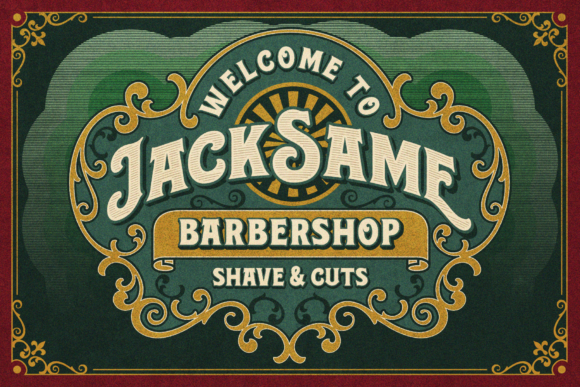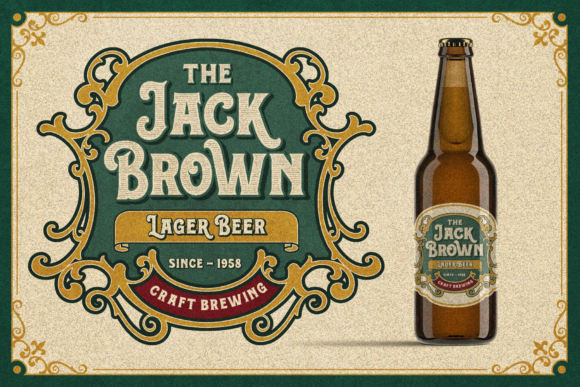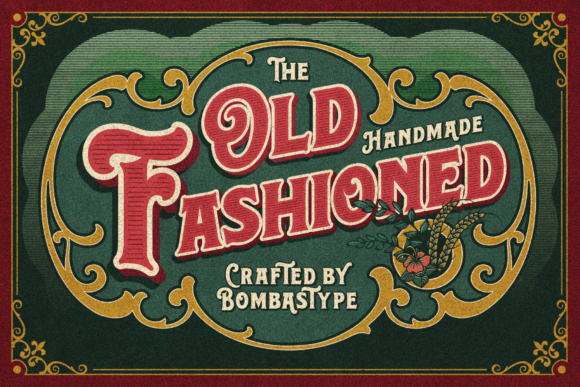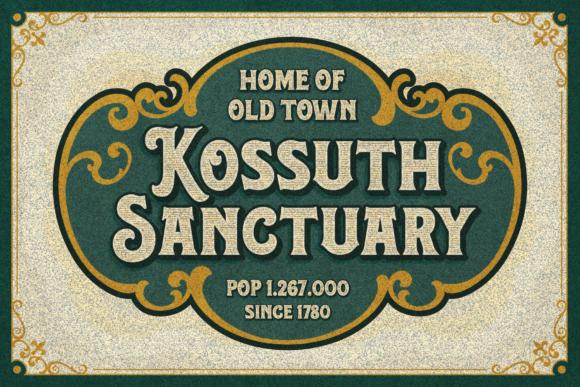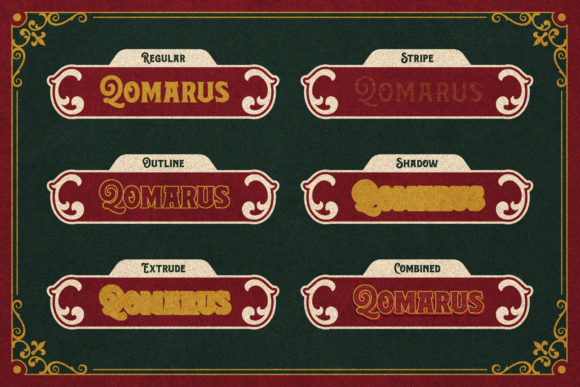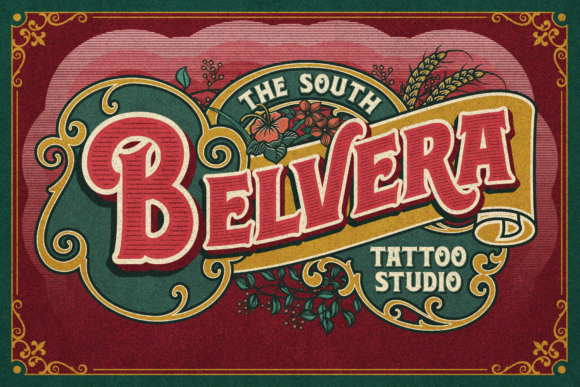
Introduction to Rosvard Font
Have you ever stared at a blank canvas, waiting for the perfect spark to ignite your creativity? That’s exactly where I was when I stumbled upon the Rosvard Font. Its bold, vintage style instantly caught my eye, and I knew I had to learn more about this unique design resource.
The Rosvard Font is more than just a stylish addition to your designs – it’s a game-changer. With its high-quality, transparent background, this font is perfect for designers looking to add a touch of sophistication to their creative projects. And the best part? It’s available for free download, making it an accessible and valuable asset for any design enthusiast.
Whether you’re working on a branding project or a personal design piece, the Rosvard Font is sure to elevate your work and make it stand out from the crowd.
Key Features of Rosvard Font
- High-quality font design with a unique, modern aesthetic
- Transparent background, making it ideal for creative projects that require a clean and minimalist look
- Includes a range of weights and styles, allowing for flexibility and customization in design projects
- Perfect for use in creative projects, such as graphic design, digital art, and typography-based designs
Honest Review: Rosvard Font
I recently came across the Rosvard Font, and I must say it’s a great addition to any design resource. The high quality of this font is evident, making it a perfect choice for creative projects.
One of the standout features of the Rosvard Font is its transparent background. This allows for seamless integration into various design elements, giving you more flexibility in your design work.
Here are some of the things that work well with the Rosvard Font:
- ✨ Versatile design: The font is suitable for a wide range of creative projects, from logos to editorial content.
- ✨ Easy to read: The clear and legible font makes it perfect for body text and headings.
- ⚠️ Limited font styles: The Rosvard Font comes in a limited number of styles, which may not be ideal for designers who require a wide range of font options.
- ⚠️ Not suitable for small text: Due to its design, the Rosvard Font may not be the best choice for small text sizes.
Overall, I’m impressed with the Rosvard Font. Its high quality, transparent background, and free download make it a valuable addition to any design resource. While it may have some limitations, it’s definitely worth considering for your next creative project.
Rosvard Font is perfect for graphic design, branding, and marketing materials. You can use it to create logos, business cards, brochures, and other marketing materials. The font’s high quality and transparent background make it ideal for creating complex designs and compositions.